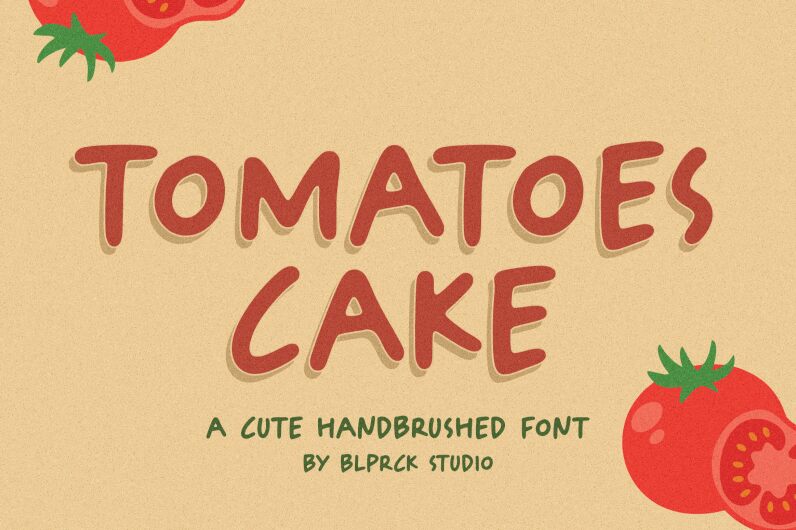
Tomatoes Cake
Tomatoes Cake font, created by Balpirick Studio, combines casual comic style with a modern script influence. Its friendly aesthetic managed by hand-drawn style gives it an organic feel and warm mood that rises from its humanist look.
Free for every user, Tomatoes Cake can be used in numerous projects including posters, magazines, ads, comics or brandings. Social media designs such as Instagram or Facebook covers are other possible use cases together with blog titles and marketing campaigns. More is still possible however in advertisements and package designs.